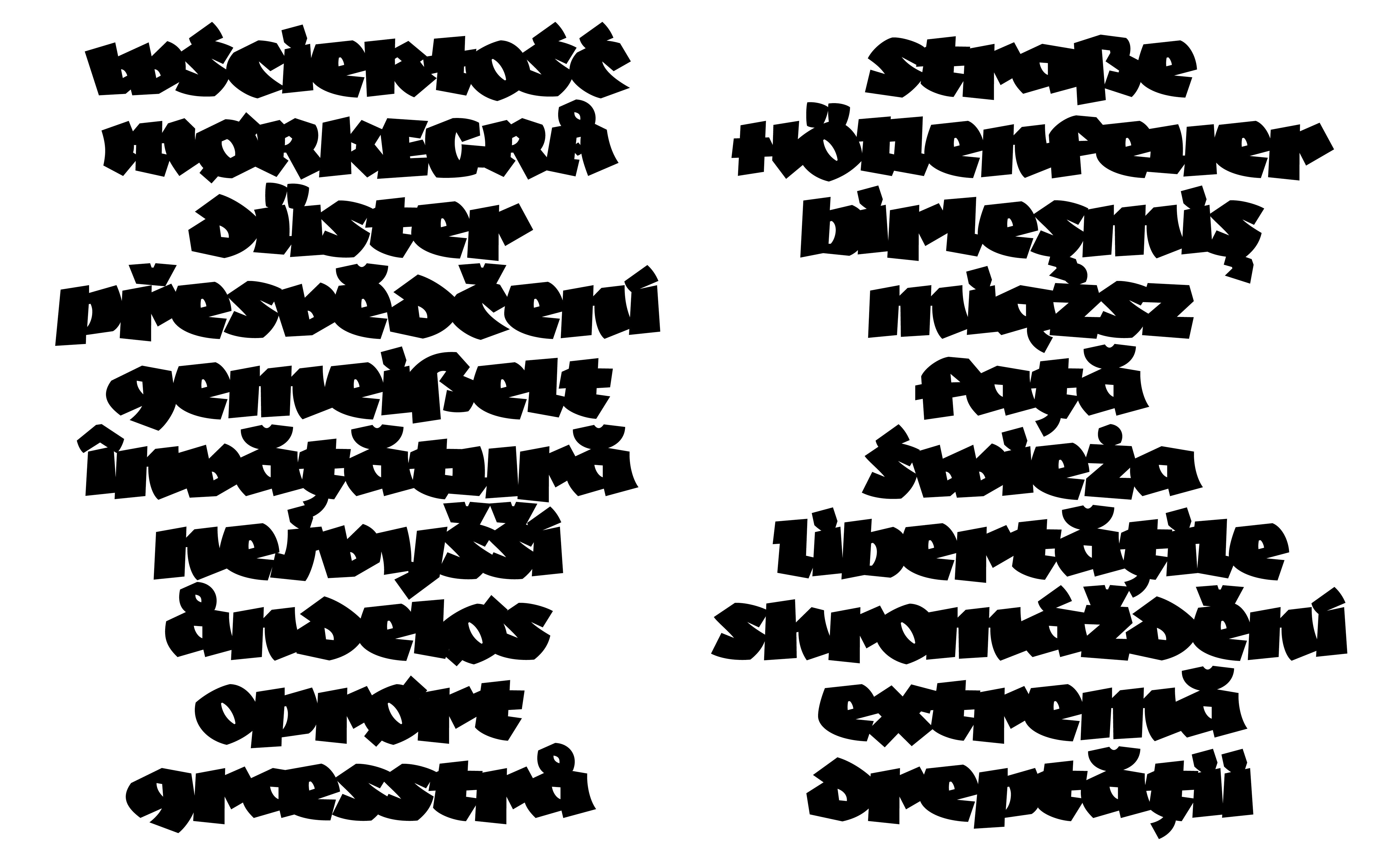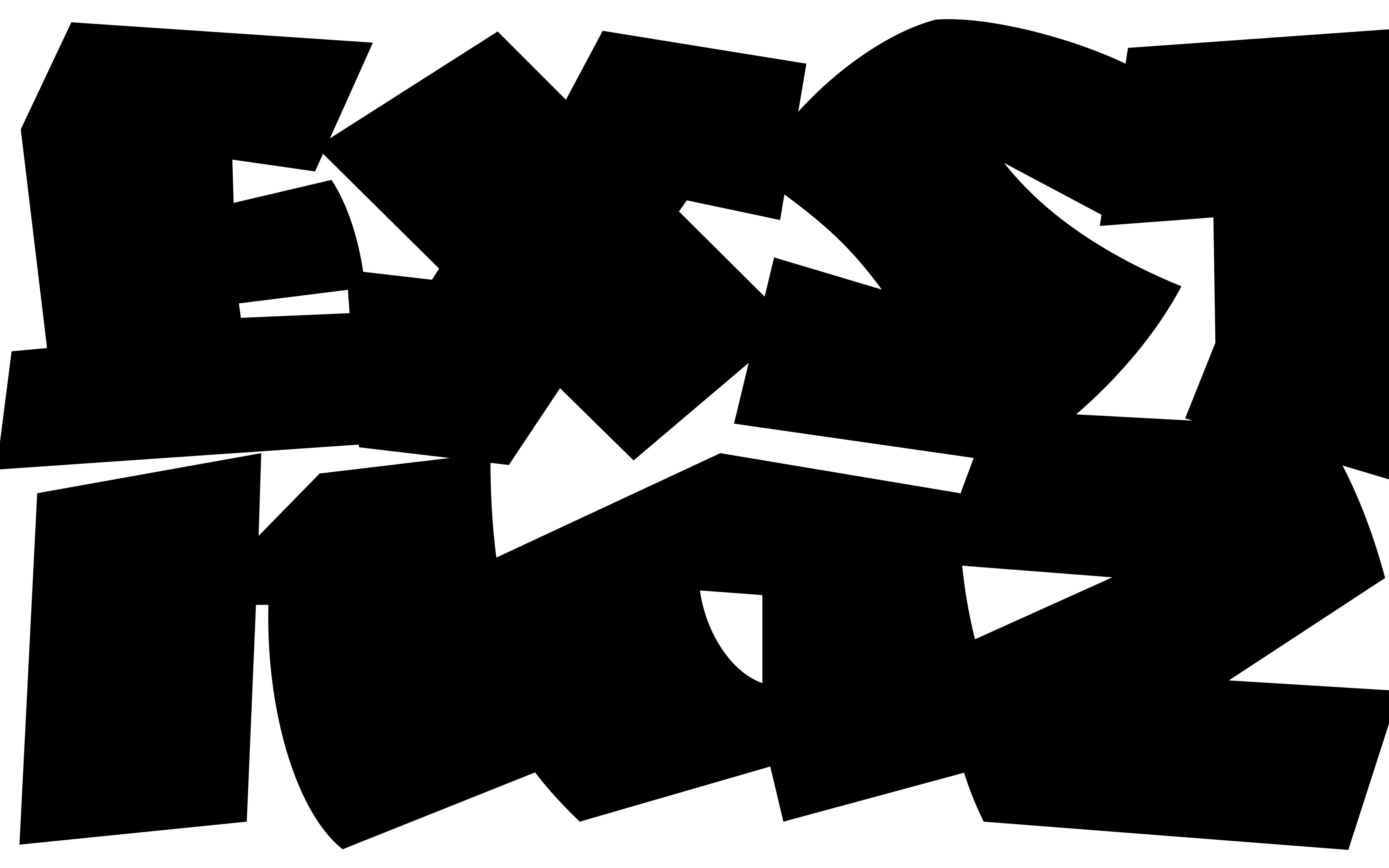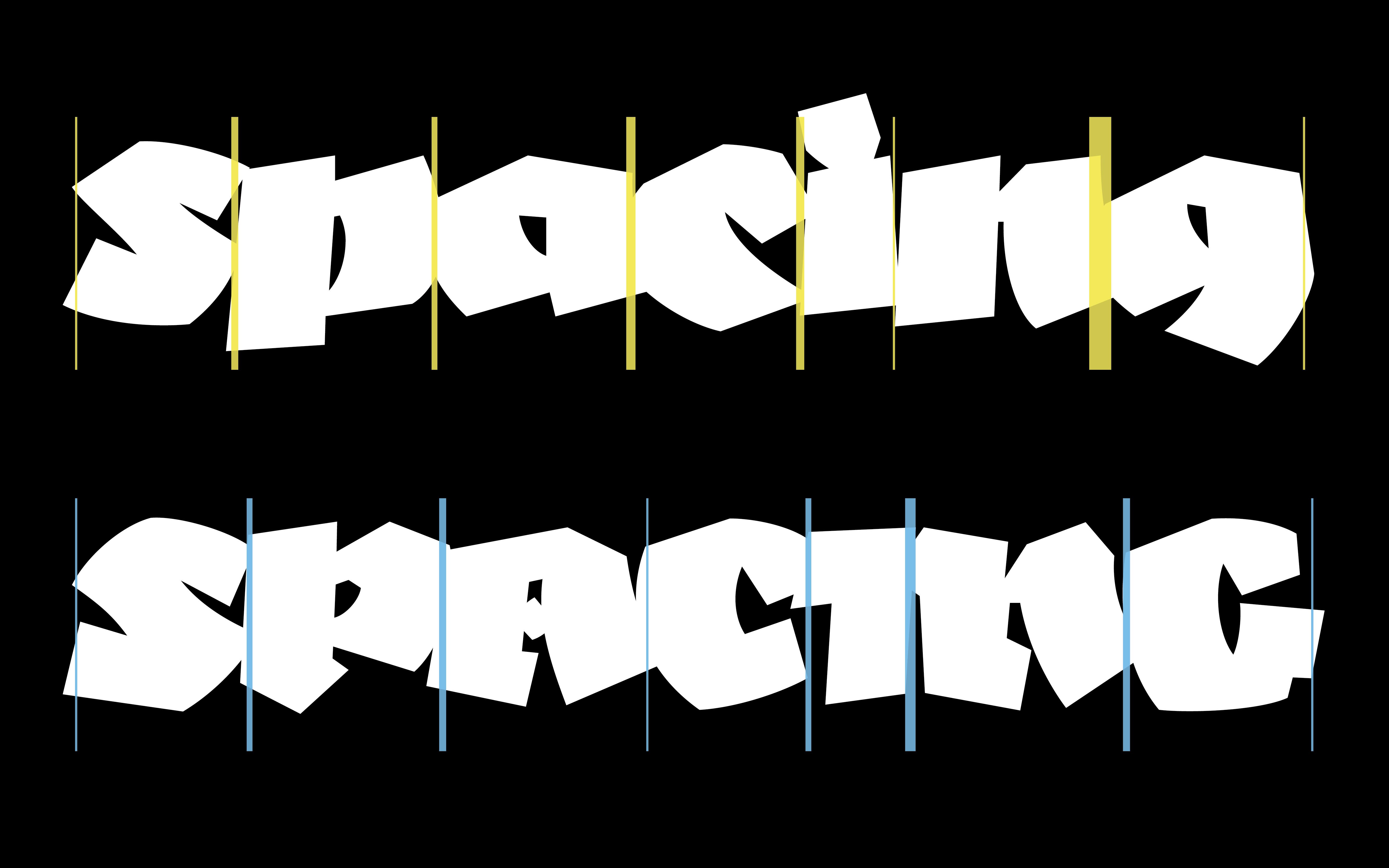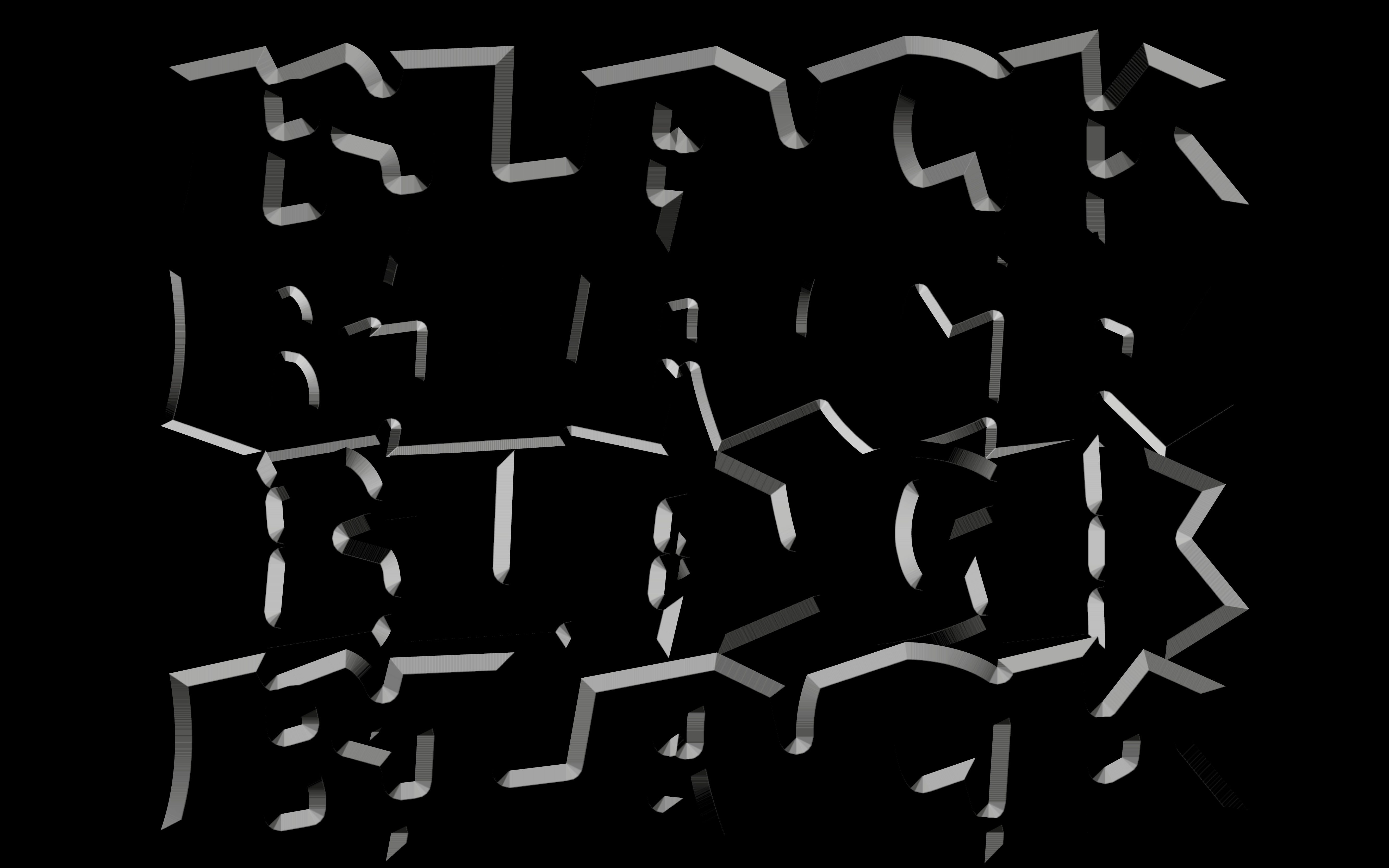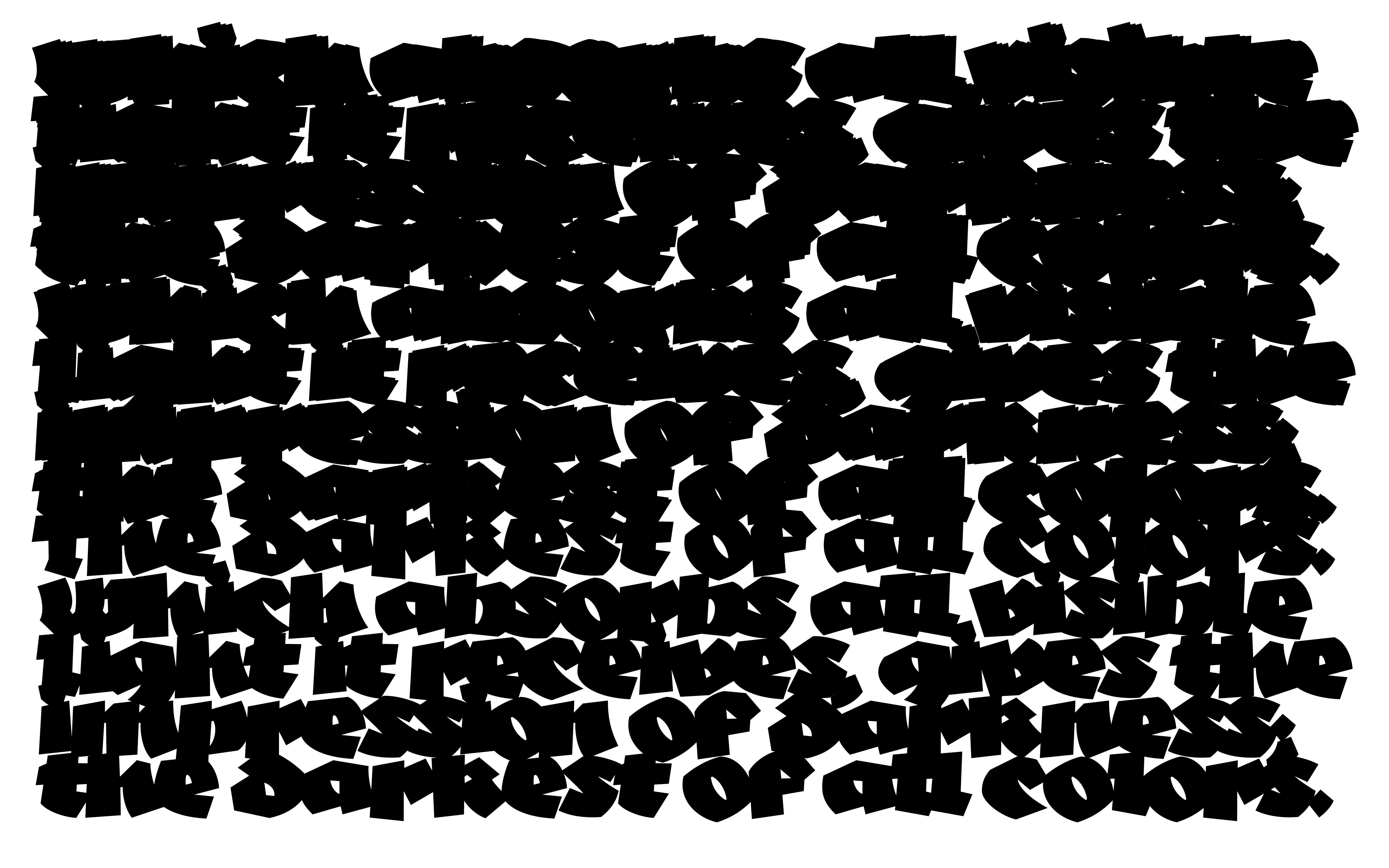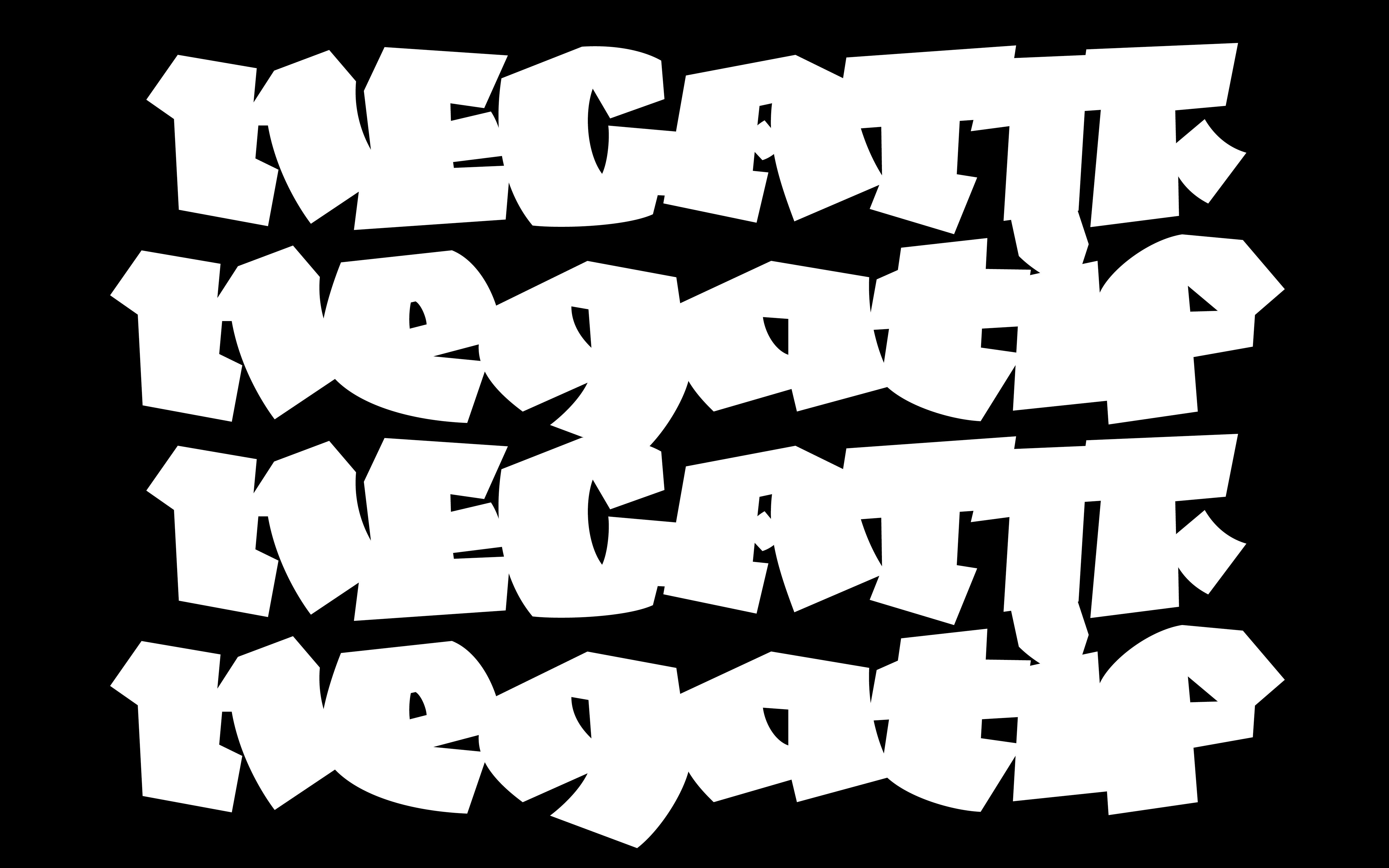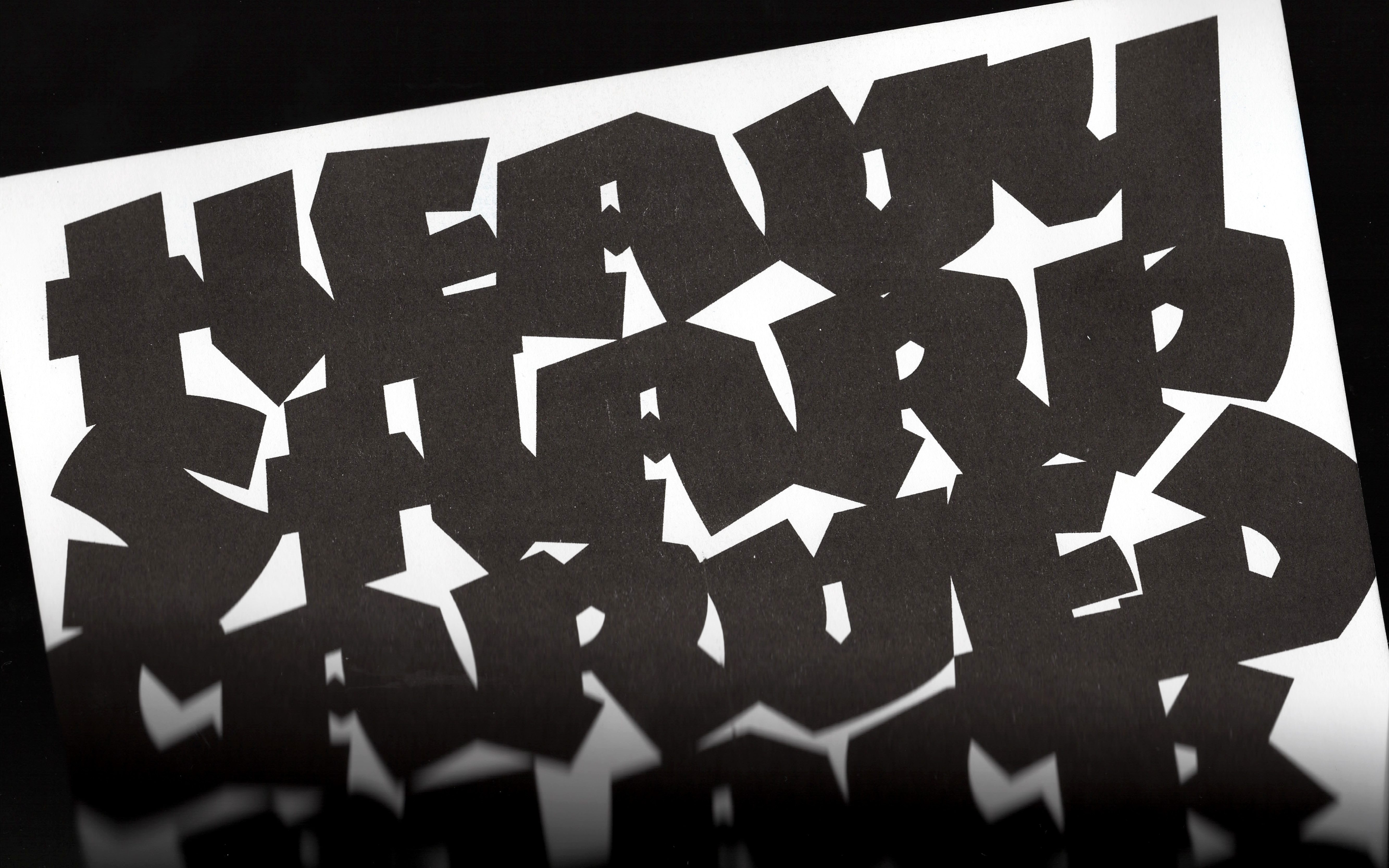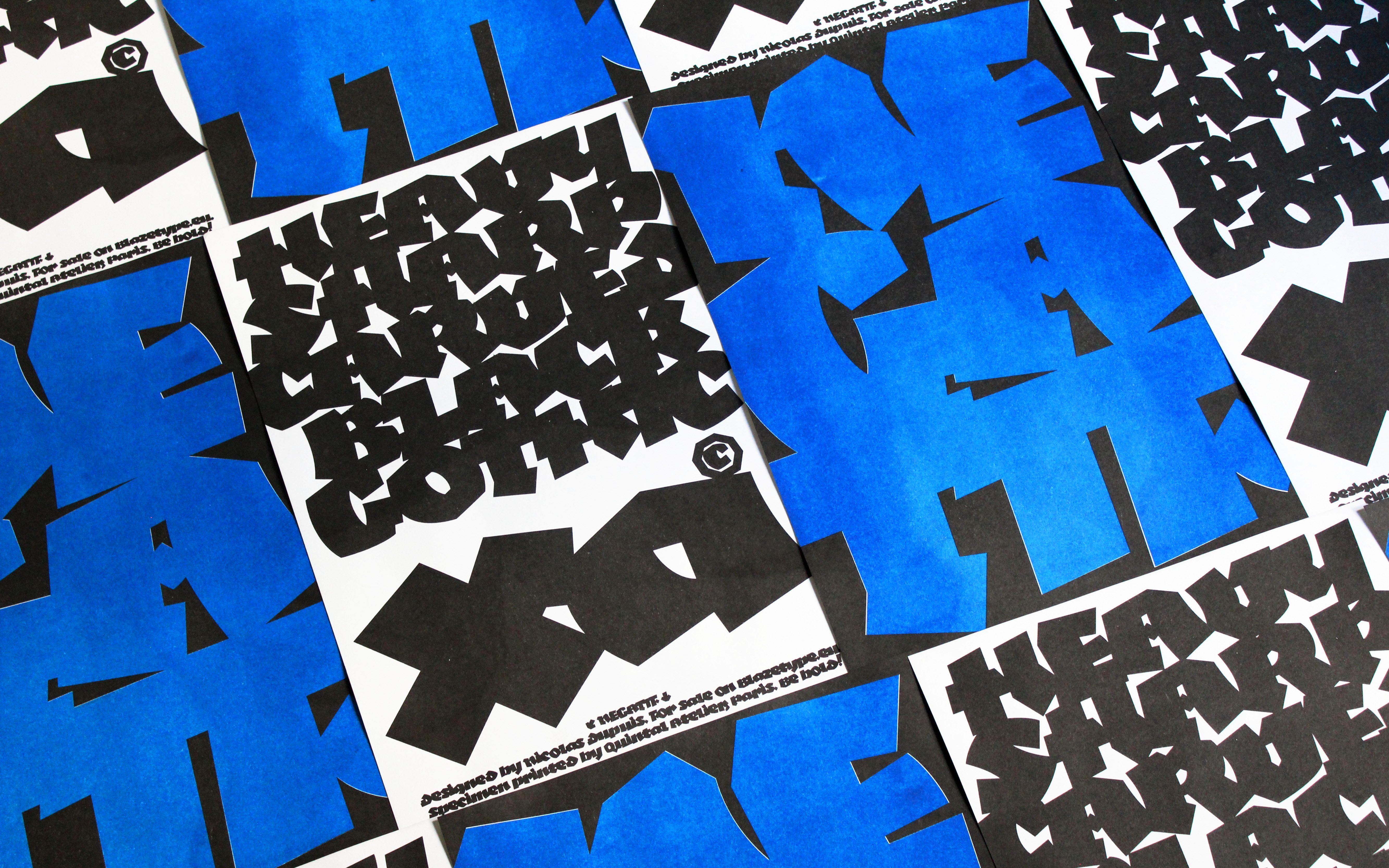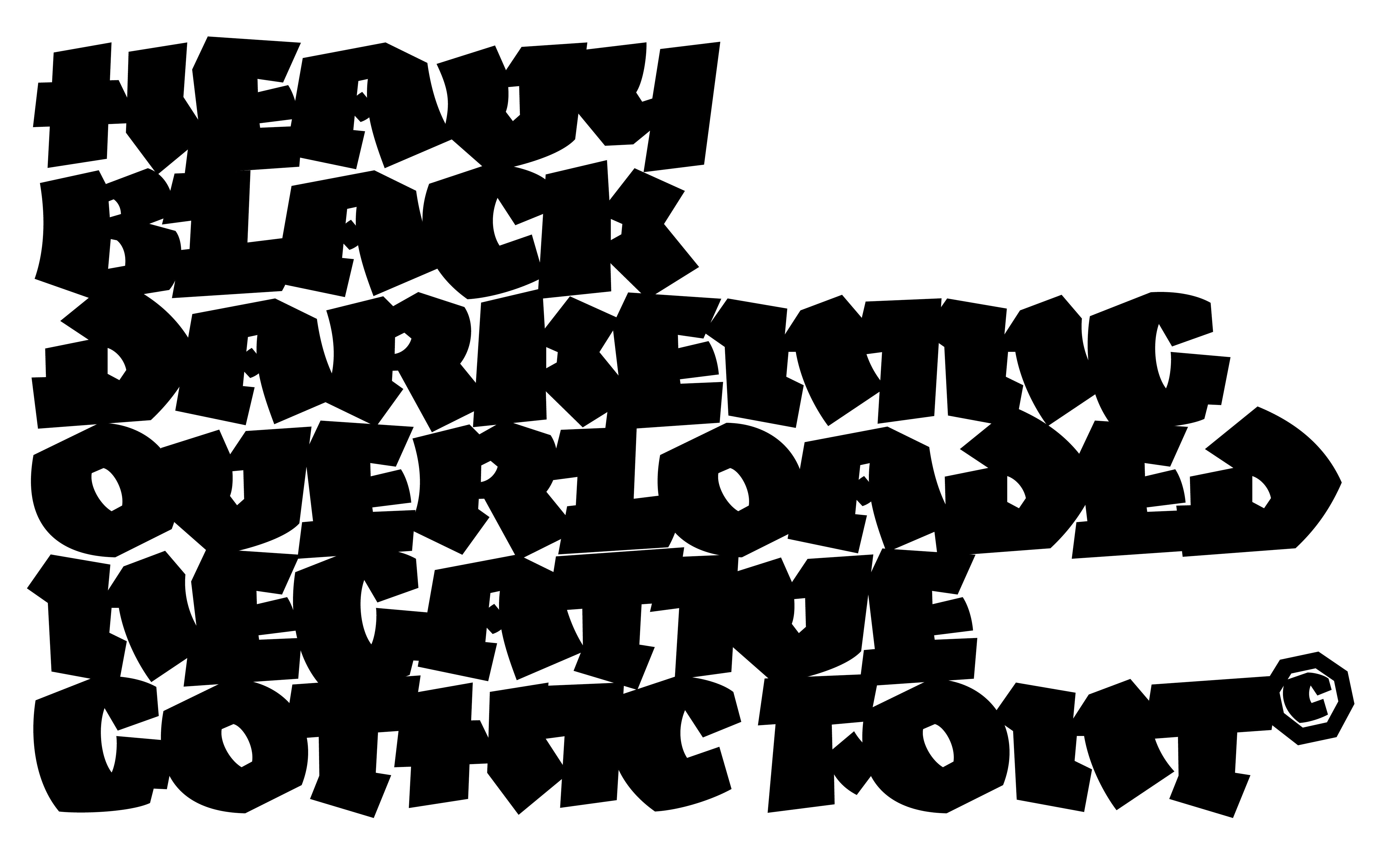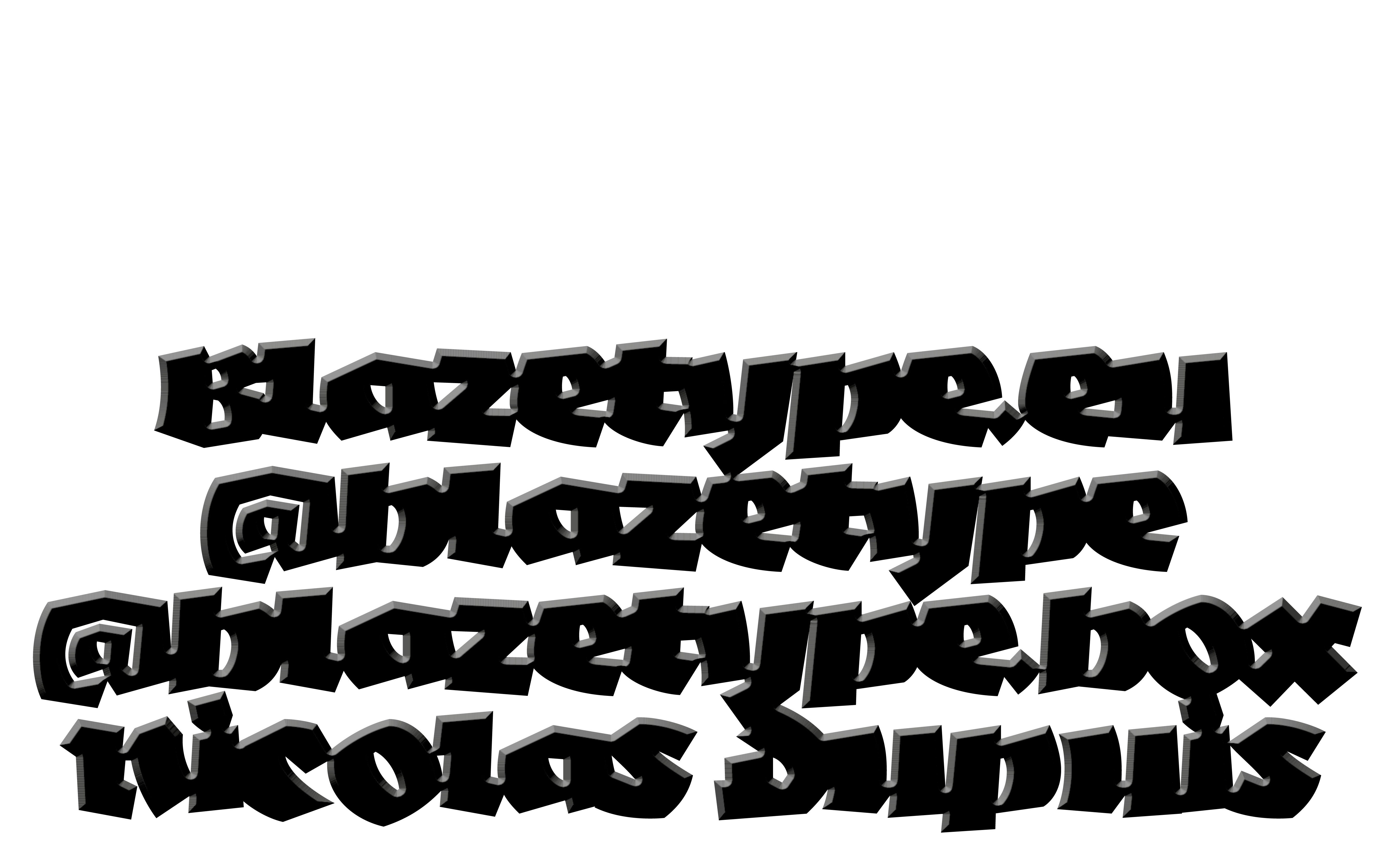
Negatif
Negatif font comes from an intention to simplify the gothic letter with a unique black style. The letters were first designed with some calligraphic research and then cut out in black paper. With the aim of obtaining raw, incisive, cutting forms. Negatif font consists in carving in the matter as sculpture, retaining the gothic inspiration..
The particular feature of Negatif is its spacing. Carried out from Glyphs app, the letters touch each other and have been reworked to create a solid and black block of text with gothic appearance. The letters have been thought to be shown in big and large compositions. They are bold enough to add textural effects and to play with overlays. It's up to you to reveal your darkest side!